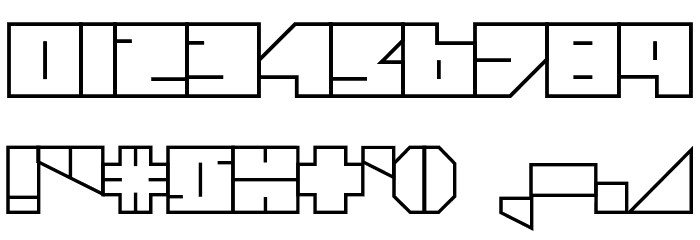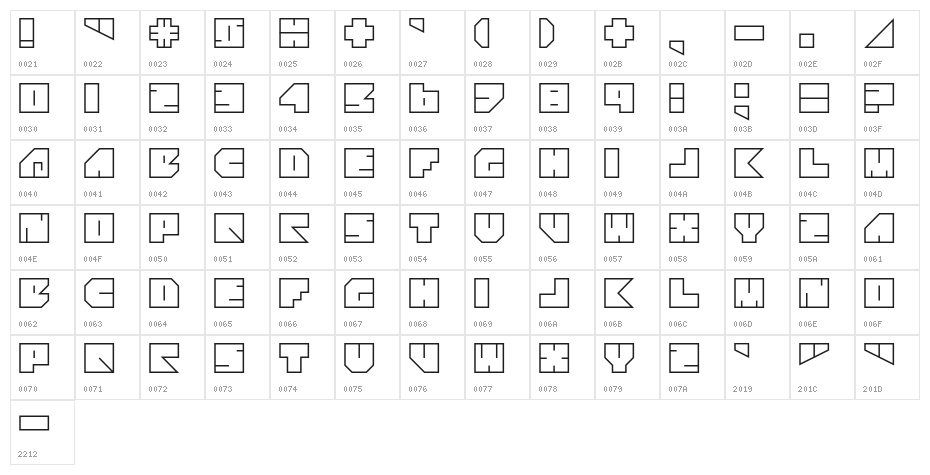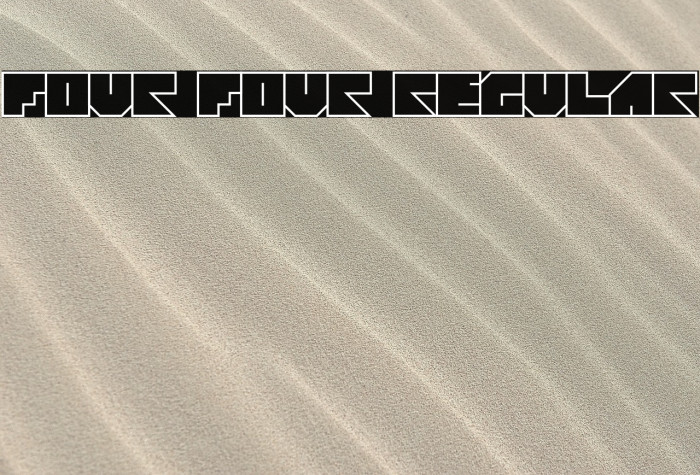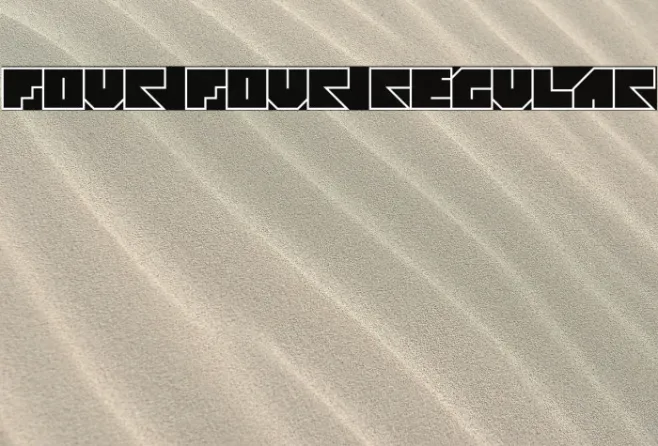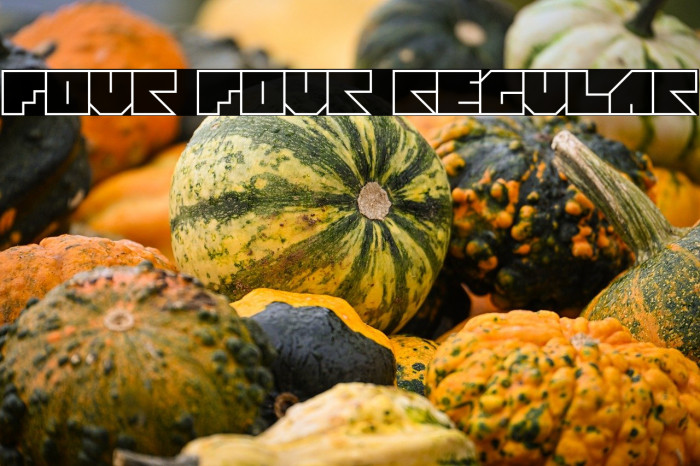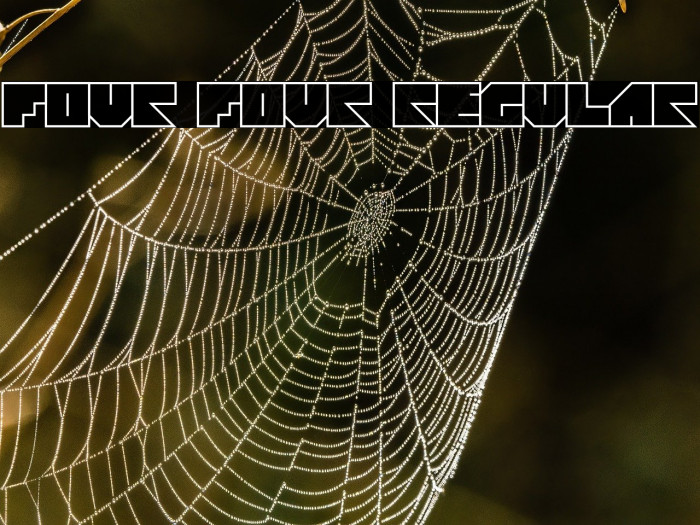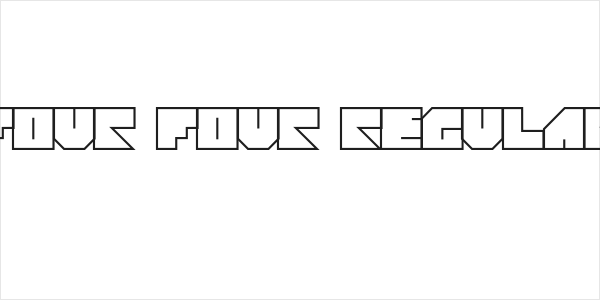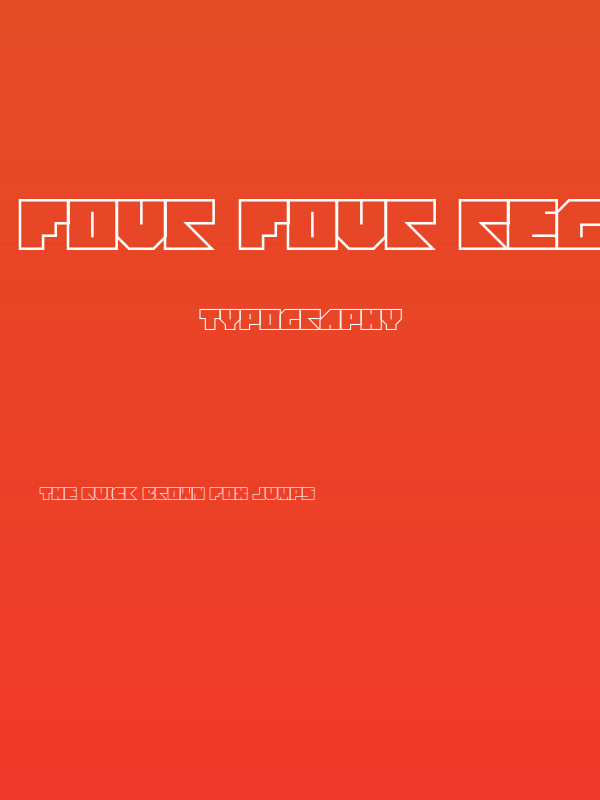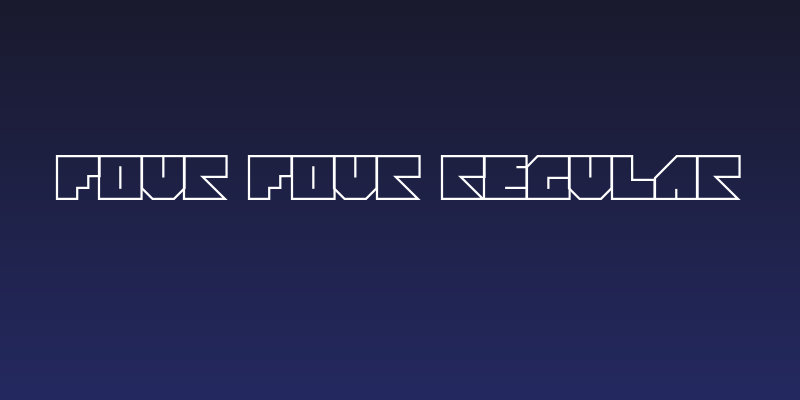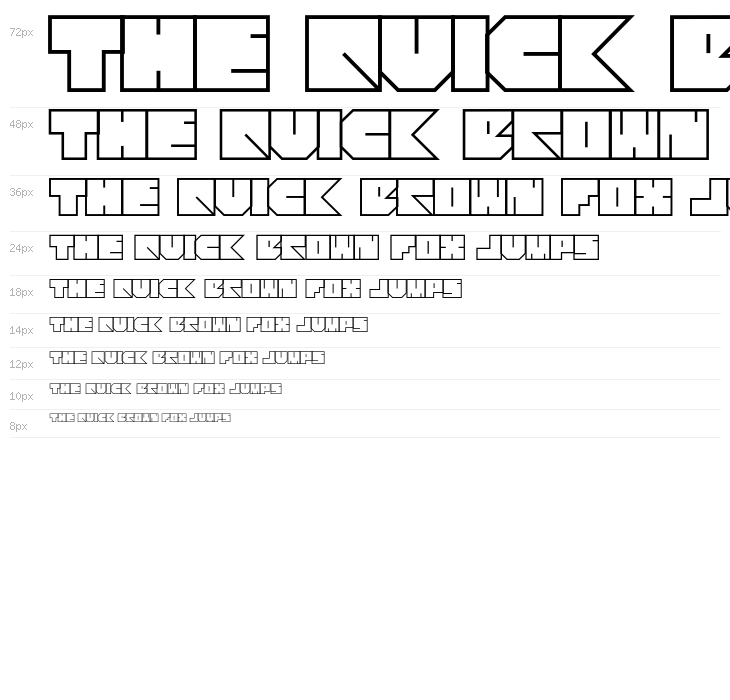
Four Four Regular Font
Four Four Regular Description
This font features a geometric and angular design, characterized by its bold, block-like structure. Each character is constructed with sharp edges and straight lines, giving it a futuristic and digital appearance. The uppercase and lowercase letters share a consistent style, maintaining the same height and width, which contributes to a uniform look. Numbers and special characters follow the same design principles, ensuring cohesion across all glyphs. The font's distinct style makes it stand out, with a focus on symmetry and precision. Its unique appearance is suitable for projects that require a modern and edgy aesthetic.
| Proposed Projects | Ideal for technology branding, video game titles, sci-fi posters, and digital interfaces. |